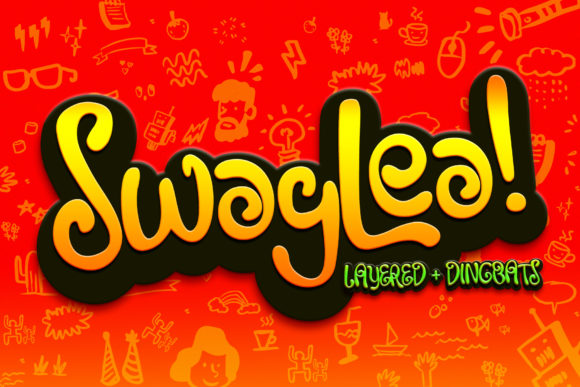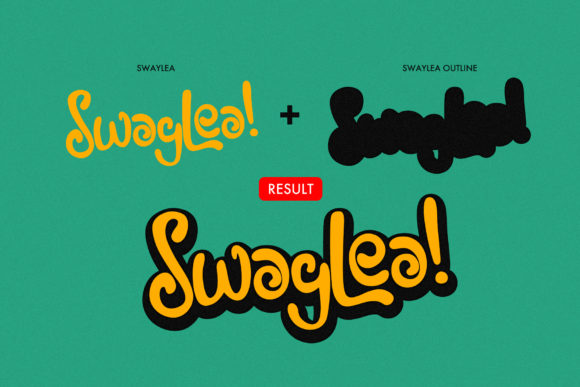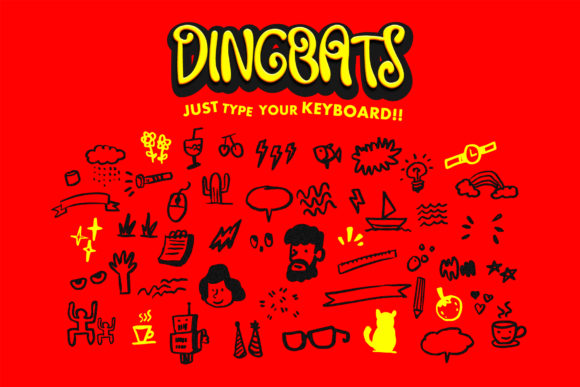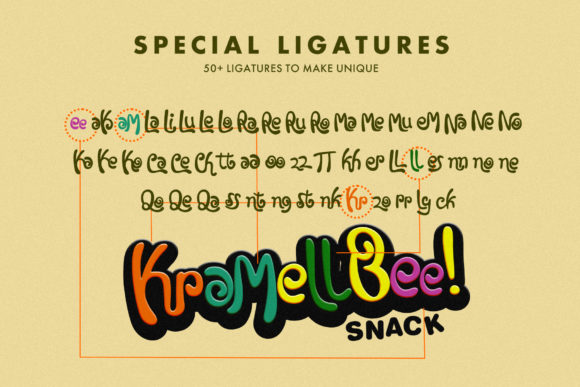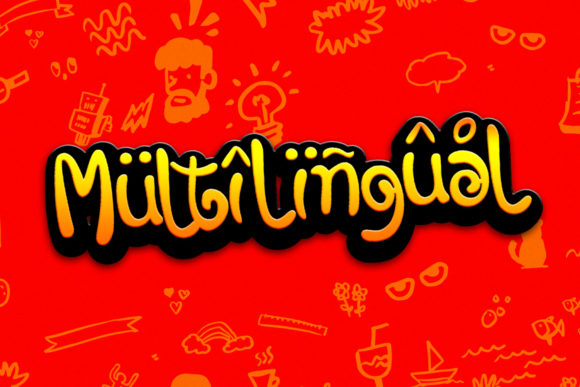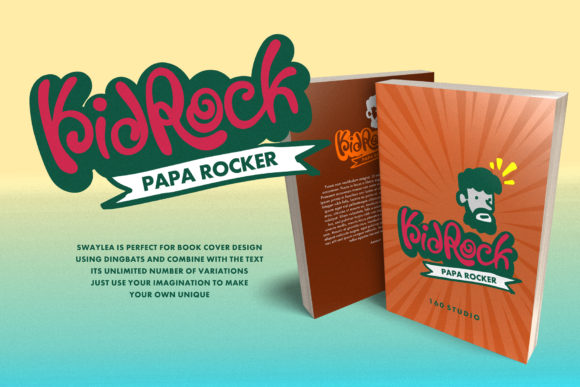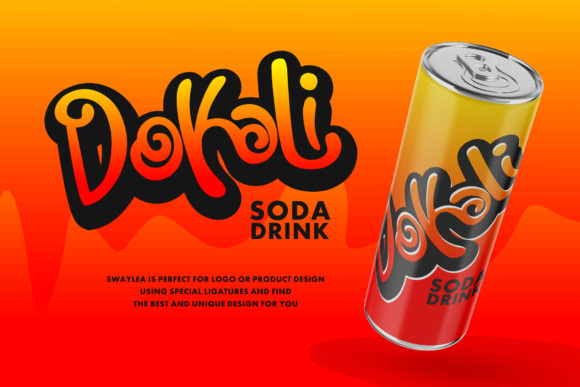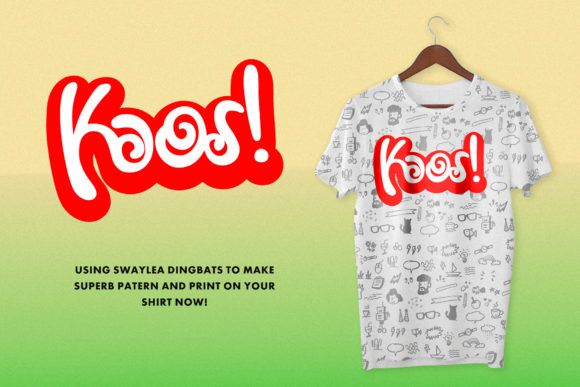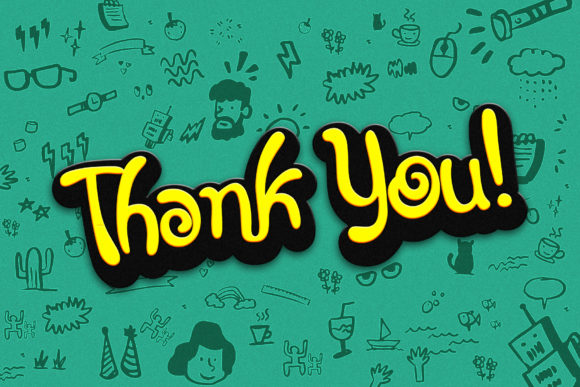
HomeScript FontsSwaylea Font Script Fonts Swaylea Font FacebookXPinterestWhatsApp Swaylea Font Poster 2 Swaylea Font Poster 3 Swaylea Font Poster 4 Swaylea Font Poster 5 Swaylea Font Poster 6 Swaylea Font Poster 7 Swaylea Font Poster 8 Swaylea Font Poster 9 About Swaylea Font Swaylea is a bold and fun font that will add an urban touch to any design project! DOWNLOAD ON CREATIVE FABRICAThis font is sold and delivered by Creative Fabrica. Font Canyon may earn a commission if you buy through this link. People also explored Old Story Bold Font Quatry Font Achanta Font Magna Black Font Hardwired Font Ponjoung Font Nabilla Font The Lantak Font Moon Walk Font 390 0 TagsSwaylea Font Previous articleDreamship FontNext articleStrawberry Milkshake Font LEAVE A REPLY Cancel reply Comment: Please enter your comment! Name:* Please enter your name here Email:* You have entered an incorrect email address! Please enter your email address here Website: Save my name, email, and website in this browser for the next time I comment. Personal Use Free Mold Papa Personal Use Free Read more about this font Urkelian Personal Use Free Read more about this font Open Heart Personal Use Free Read more about this font Numberpile Personal Use Free Read more about this font BLOG To increase your work productivity, choose the most readable fonts. In today's fast-paced work environment, where digital communication and information consumption are integral to our daily routines, the choice of fonts can significantly impact... 5 Fonts That Will Dominate Design Trends in 2026 Exploring Font Trends Best Fonts for YouTube Videos: Make Your Thumbnails Stand Out